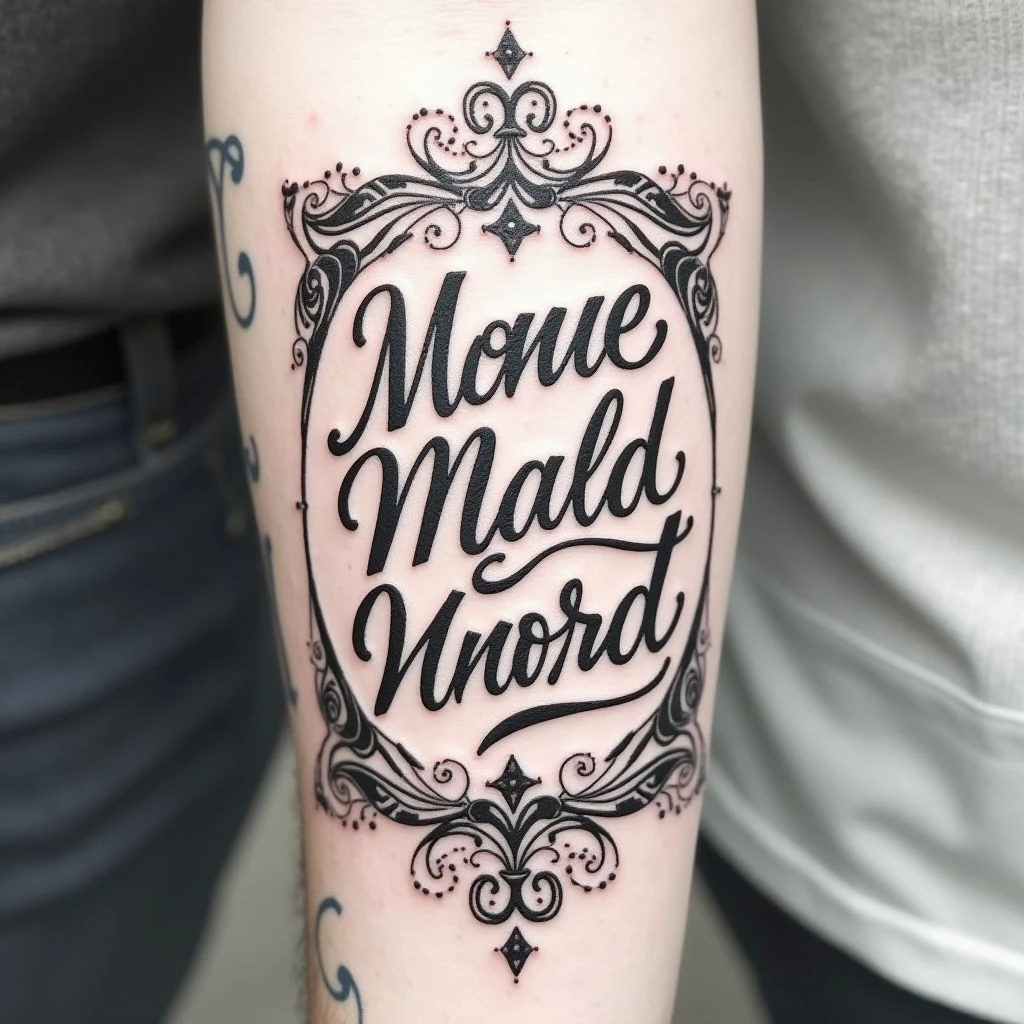
Discover the best tattoo fonts for women. From delicate script to bold serifs, explore font styles that reflect your personality and add meaning to your ink.
Choosing the Right Tattoo Font: A Guide for Women
Selecting a font can truly transform a tattoo, elevating it from simply beautiful to deeply meaningful. This guide is specifically tailored for women exploring delicate or bold expressions through ink, and we'll break down popular font styles and their aesthetics.
Understanding Font Styles
Let’s explore the options. Think about how each style interacts with your design and the message you want to convey—it's a crucial detail.
Script Fonts: Grace and Femininity
If you’re aiming for an elegant touch, script fonts are your go-to. Imagine flowing calligraphy or delicate cursive—they're perfect for names, dates, or short quotes that deserve a romantic feel.
Serif Fonts: Classic Sophistication
Serif fonts offer timeless appeal. The small decorative strokes at the ends of letters convey a sense of authority and tradition, making them ideal for literary references or impactful statements.
Sans-serif Fonts: Modern Minimalism
For a clean, contemporary look, sans-serif fonts are the way to go. Their simple lines and minimalist aesthetic work well with geometric designs or modern quotes.
Vintage & Retro Fonts: A Touch of Nostalgia
Want to add a bit of character? Vintage and retro fonts capture the charm of past eras, lending your tattoo a unique feel.
Calligraphy Styles: Artistic Flair
Consider calligraphy styles for an artistic touch—they really elevate the design.
Mixing and Matching
Don't be afraid to experiment! Combining two or three different styles can add depth and visual interest. For example, pairing a script font with a sans-serif creates an intriguing contrast.
Tattoo Font Ideas for Women: A Guide to Styles & Meaning